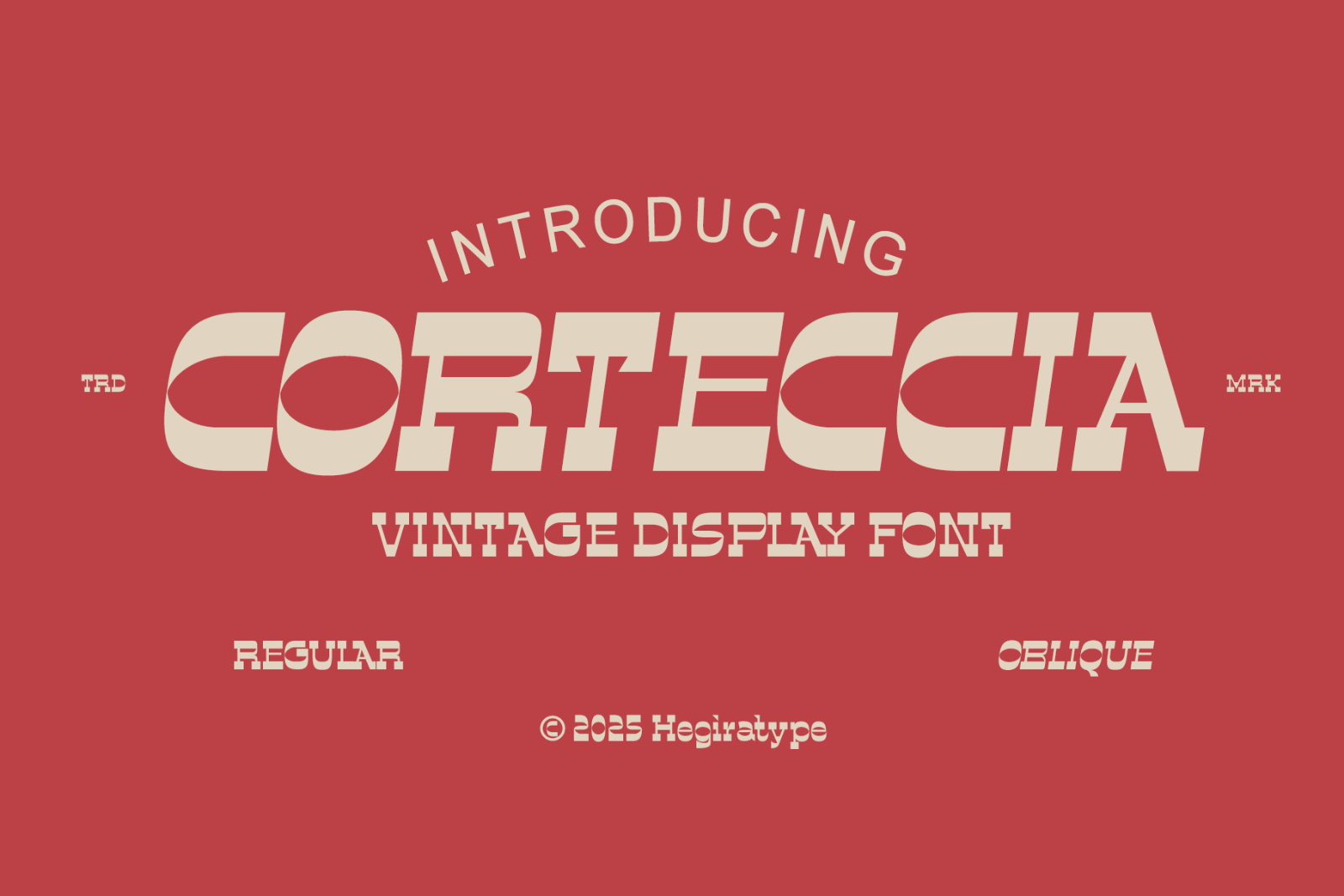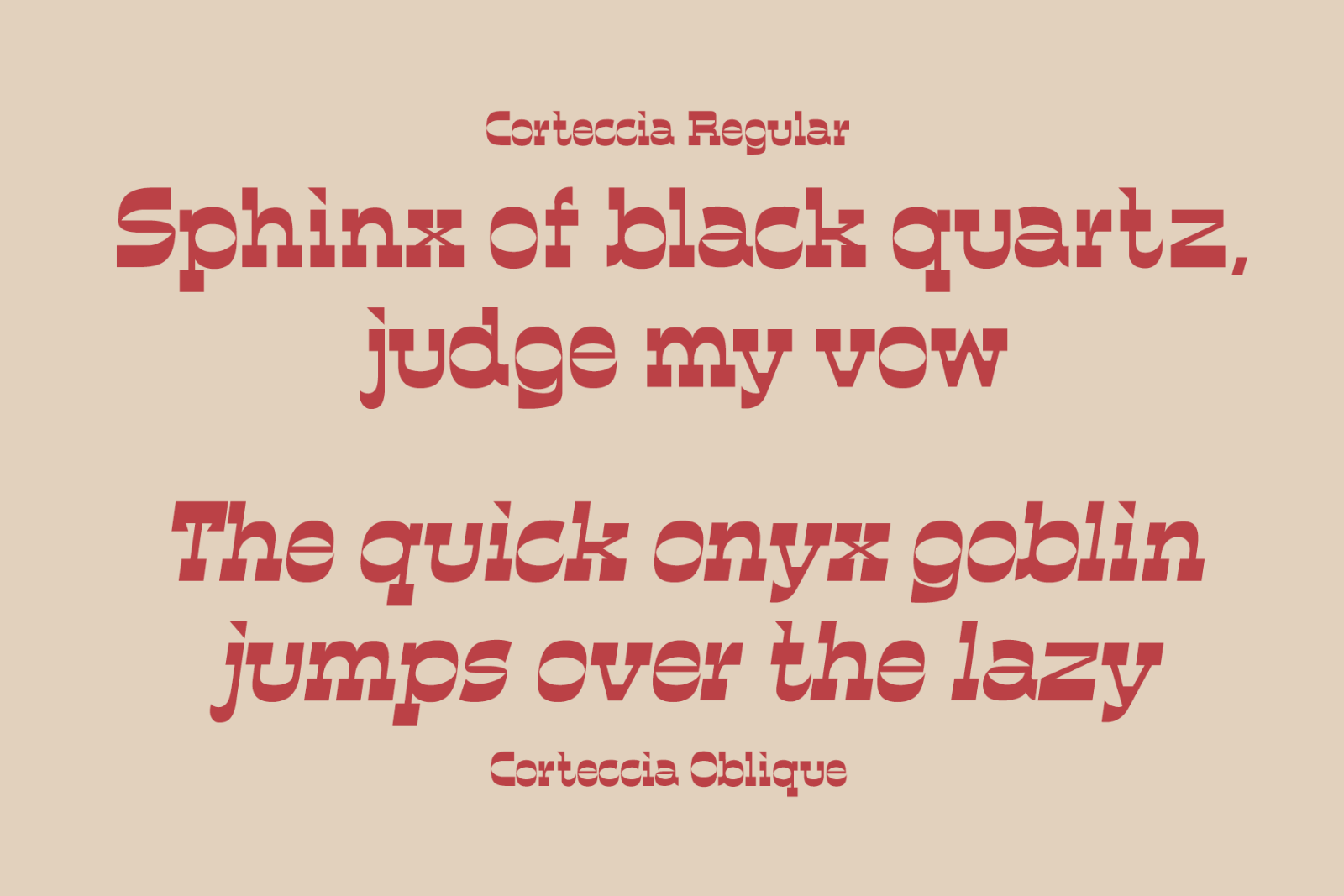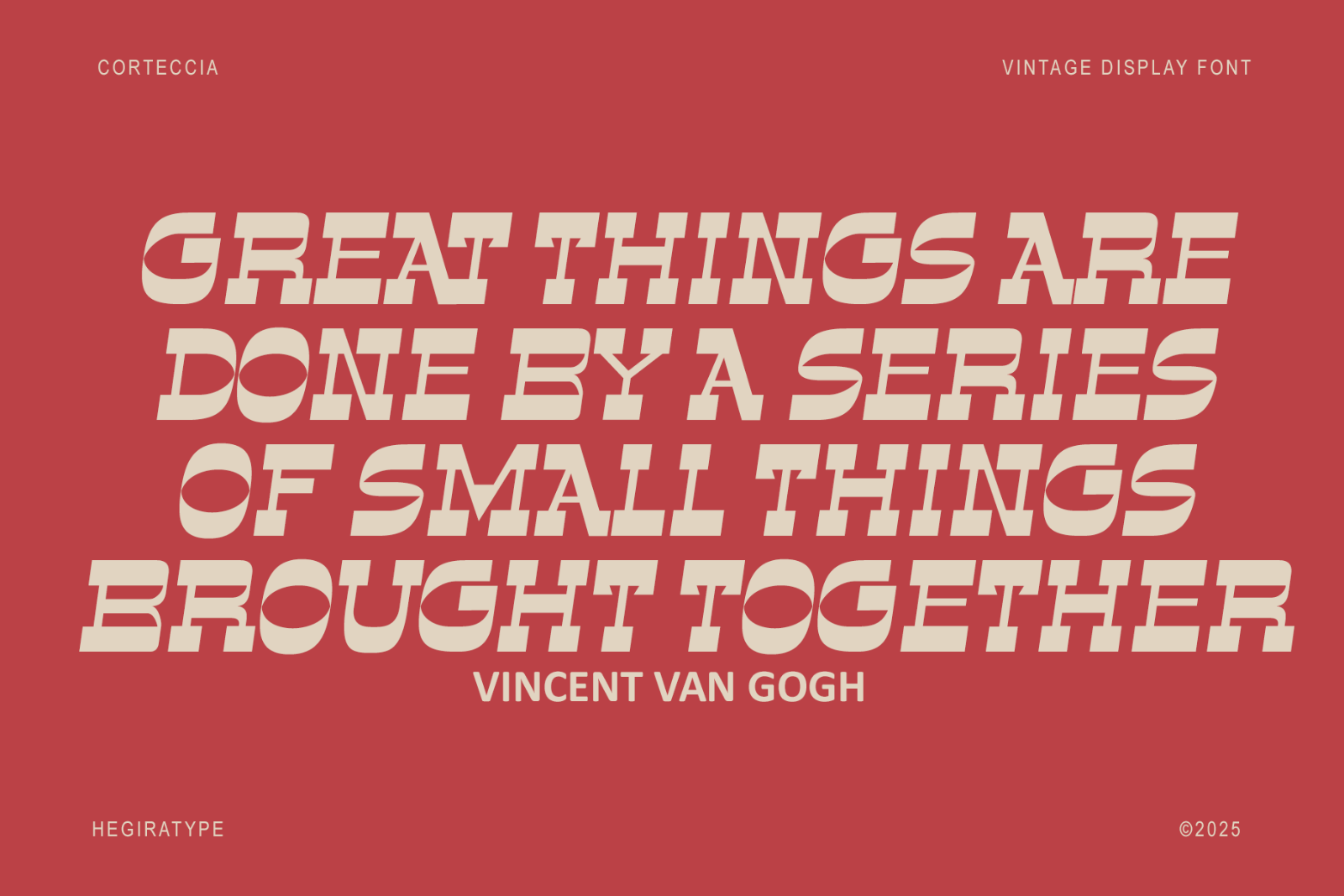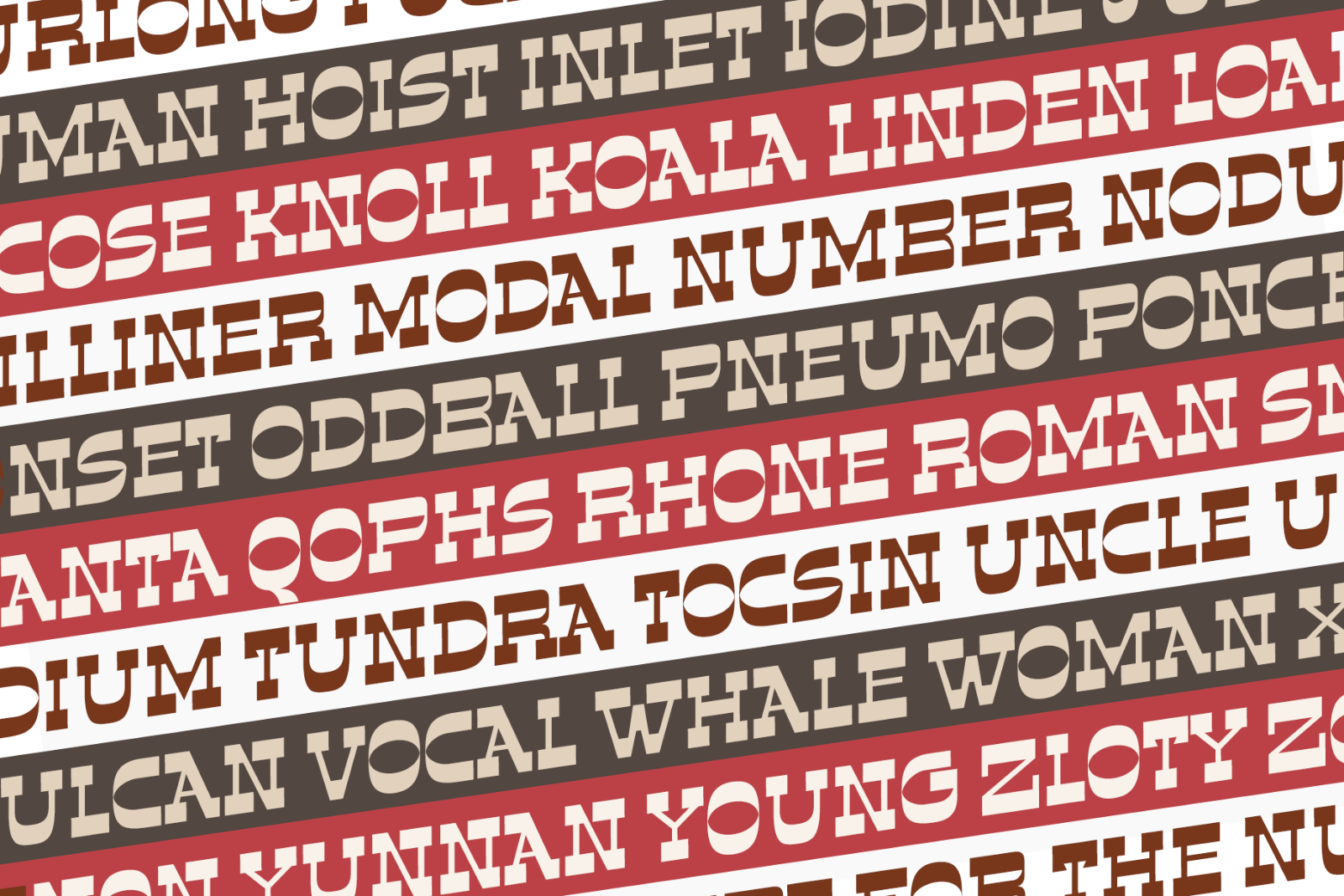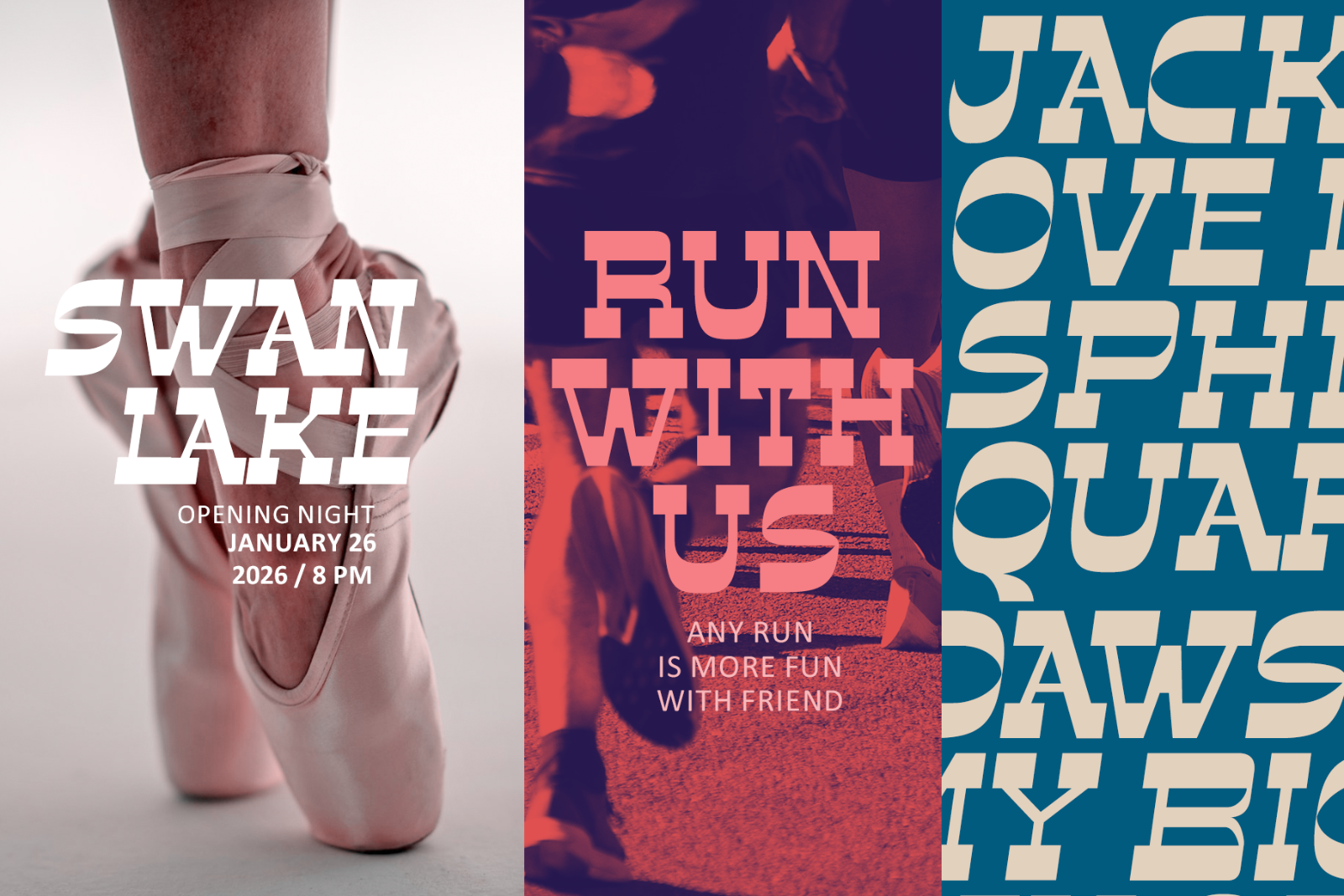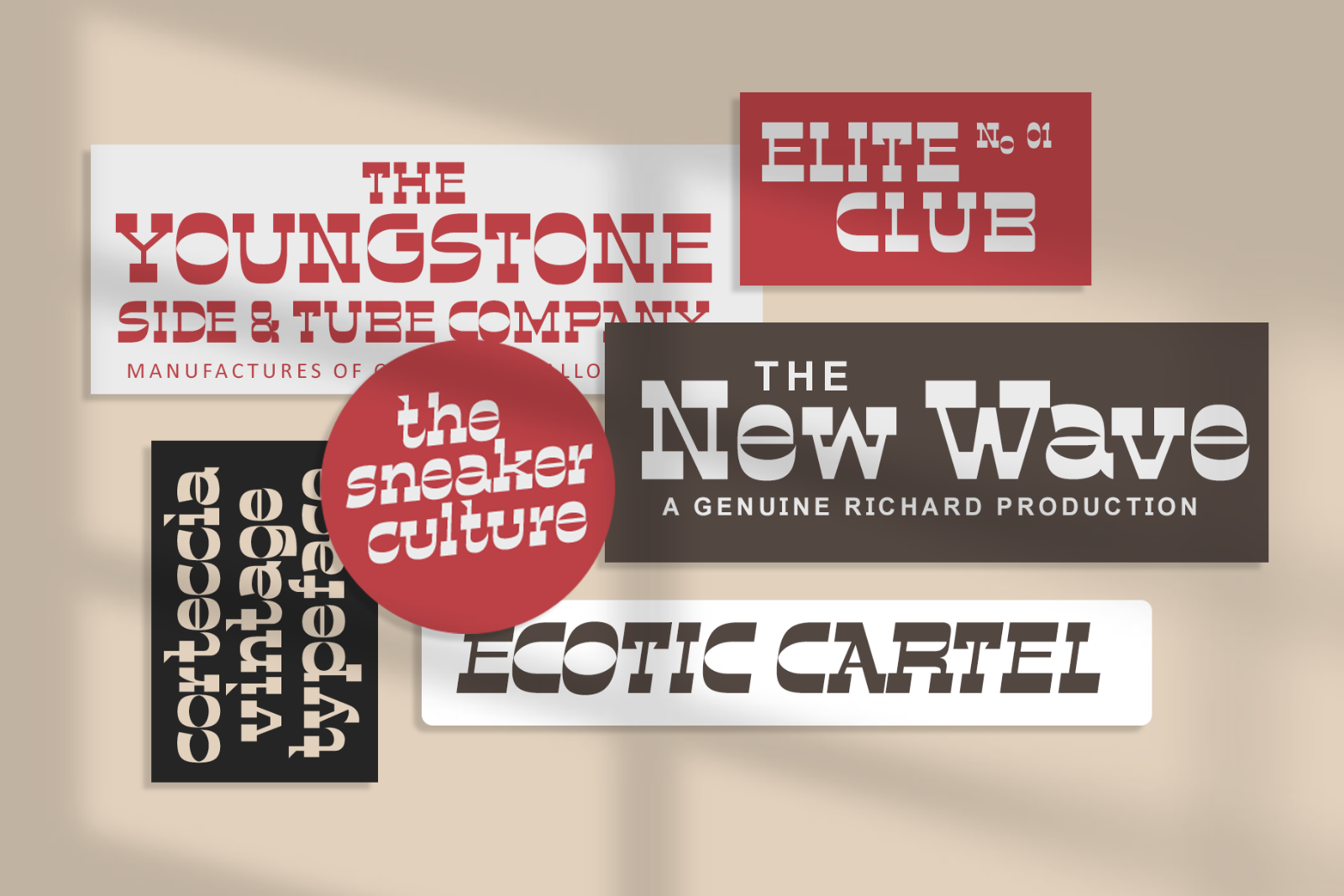
Corteccia is a bold display typeface inspired by the rich tradition of 19th-century wood type printing. With its strong letterforms, rustic textures, and vintage charm, Corteccia brings back the spirit of old posters, wooden signage, and classic circus or theater typography. Designed to command attention, every letter in Corteccia radiates strength, authenticity, and timeless character—perfect for: Eye-catching posters & bold headlines, Retro-industrial branding projects, Vintage logos for barbershops, breweries, cafés, or restaurants, Rustic & handcrafted packaging designs, Editorial layouts with a classic twist